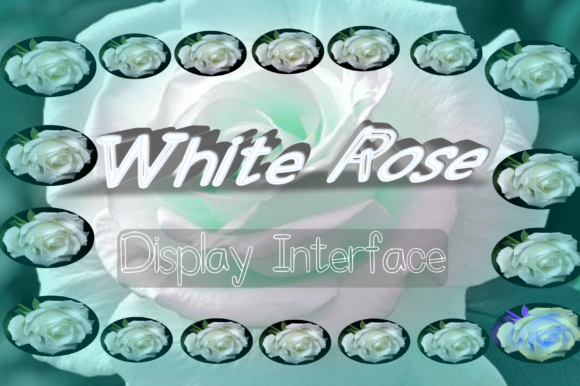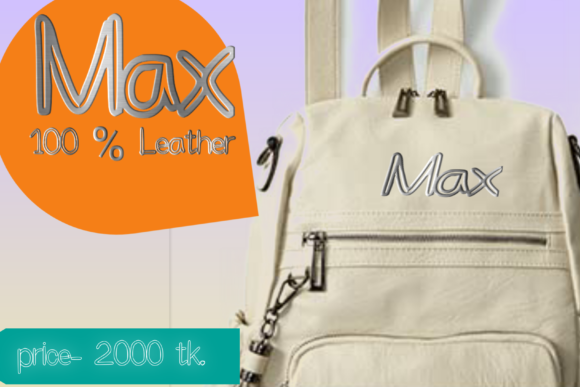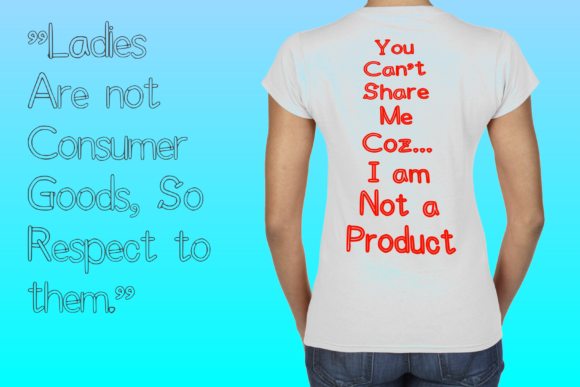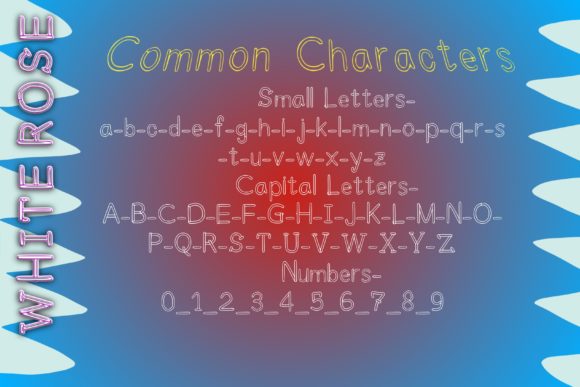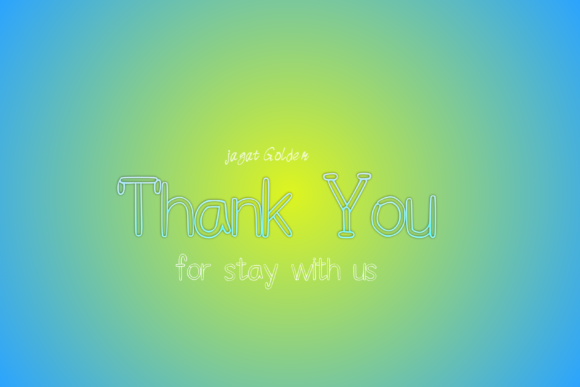
White Rose
About White Rose Font
White Rose is an elegant and cool outlined display font. It will look stunning on any poster flyer or print.Use this font for your designs and explore its endless possibilities.